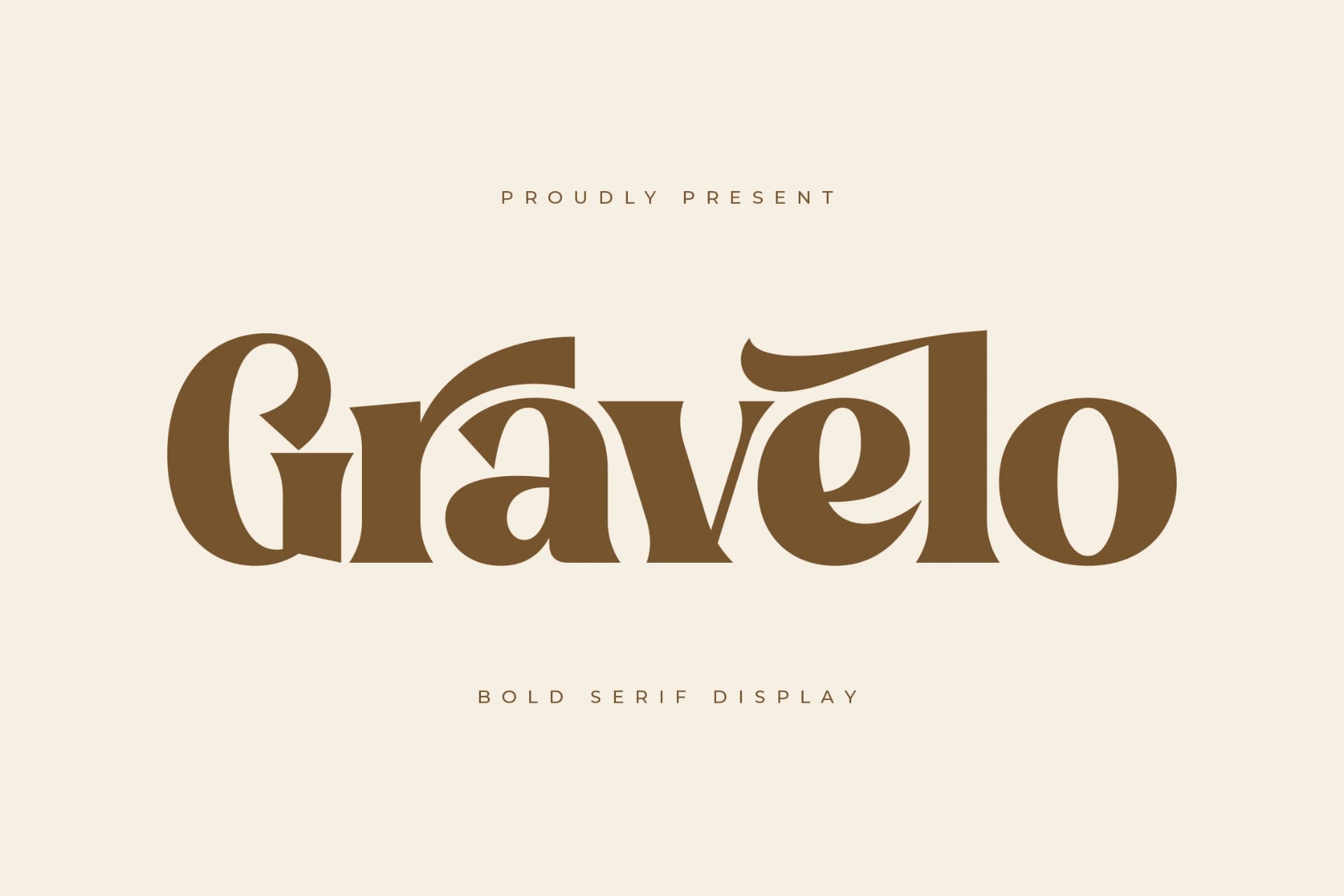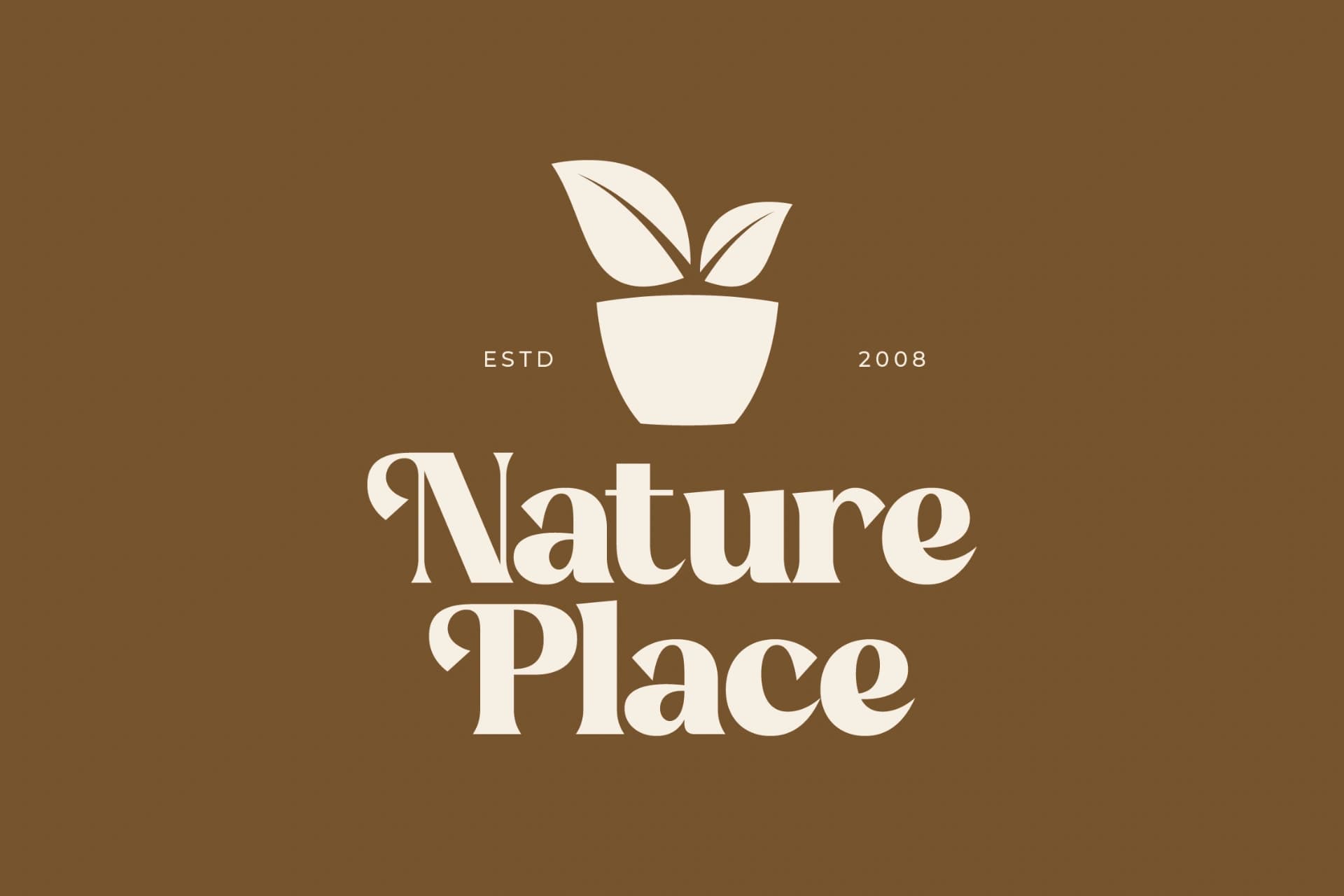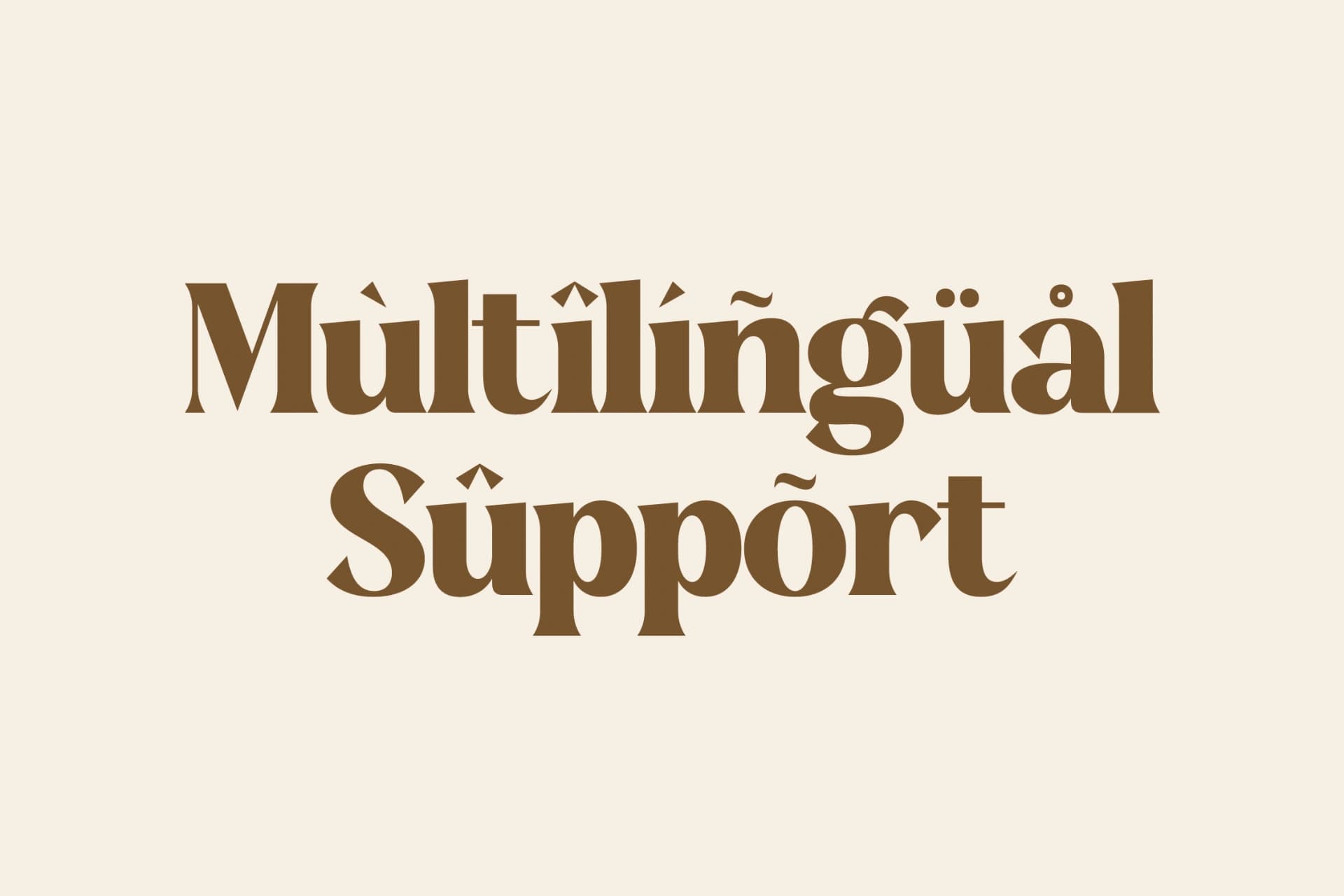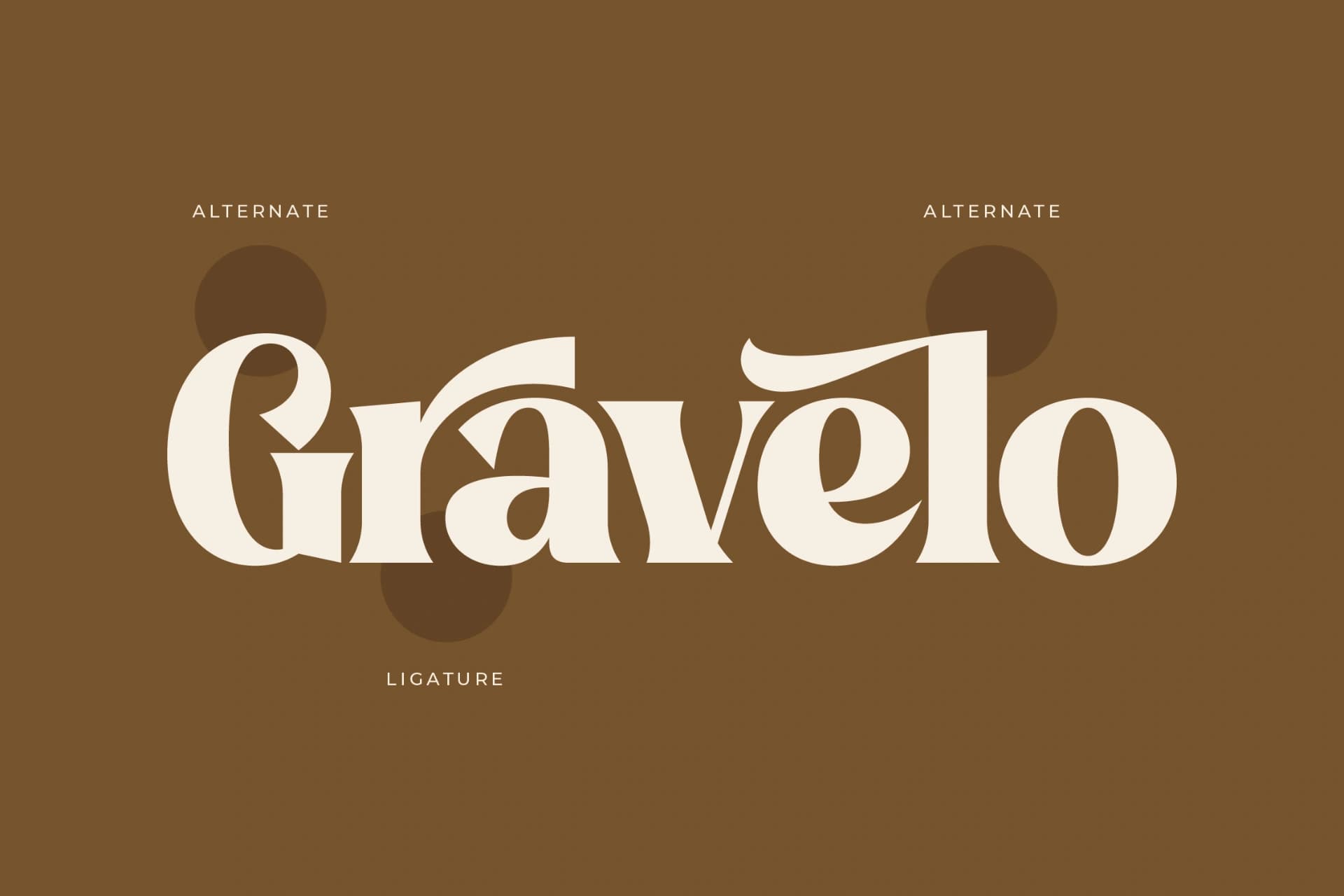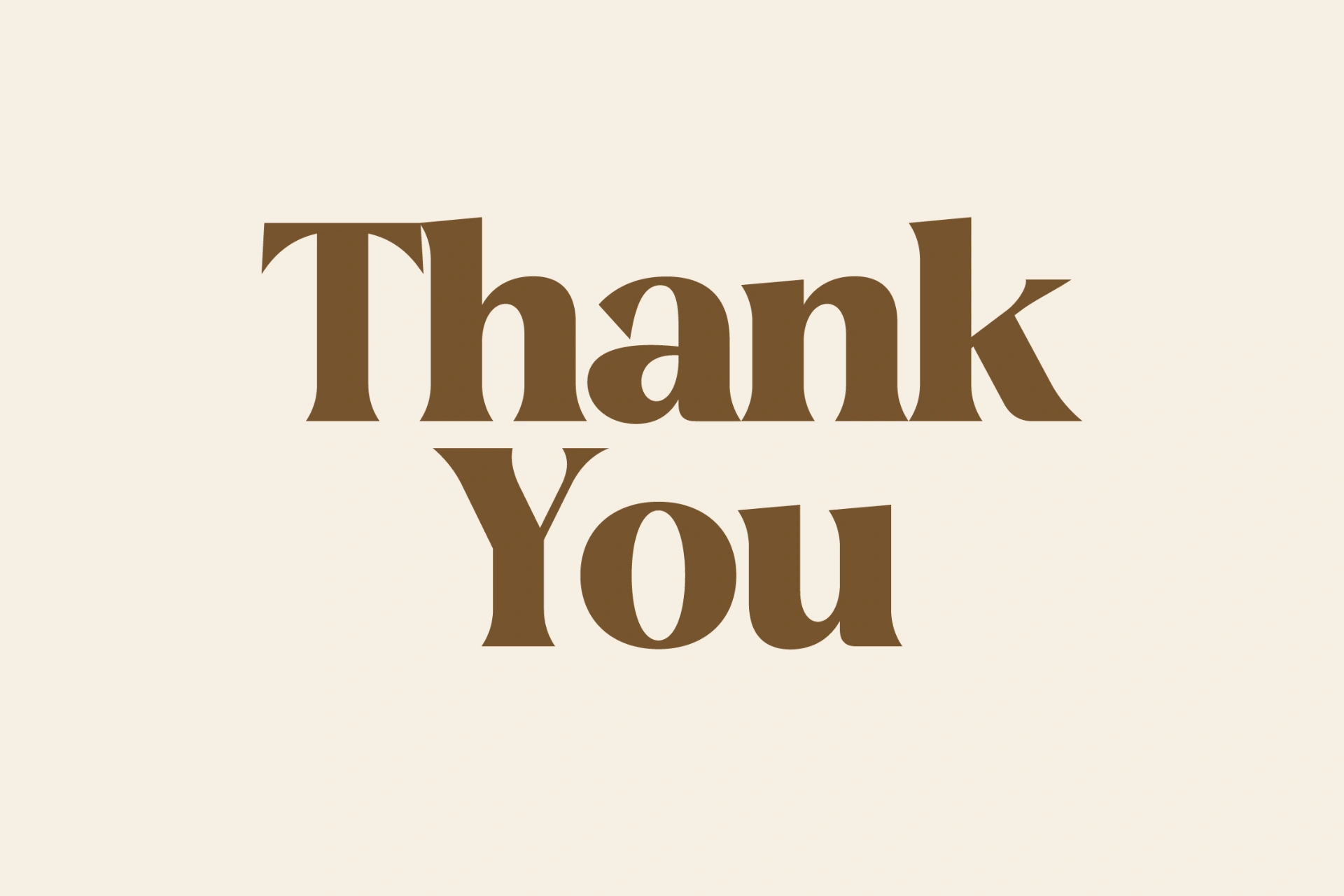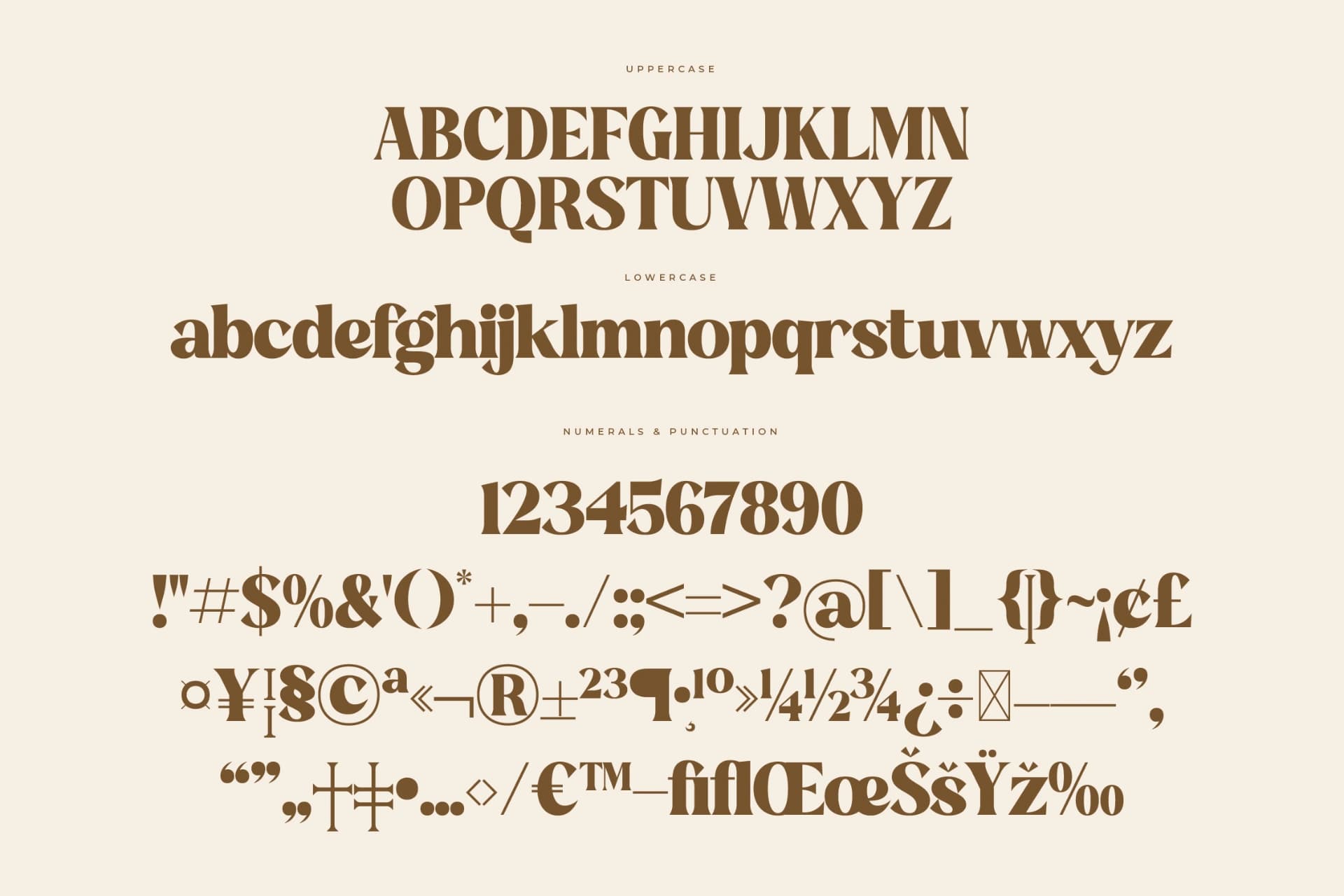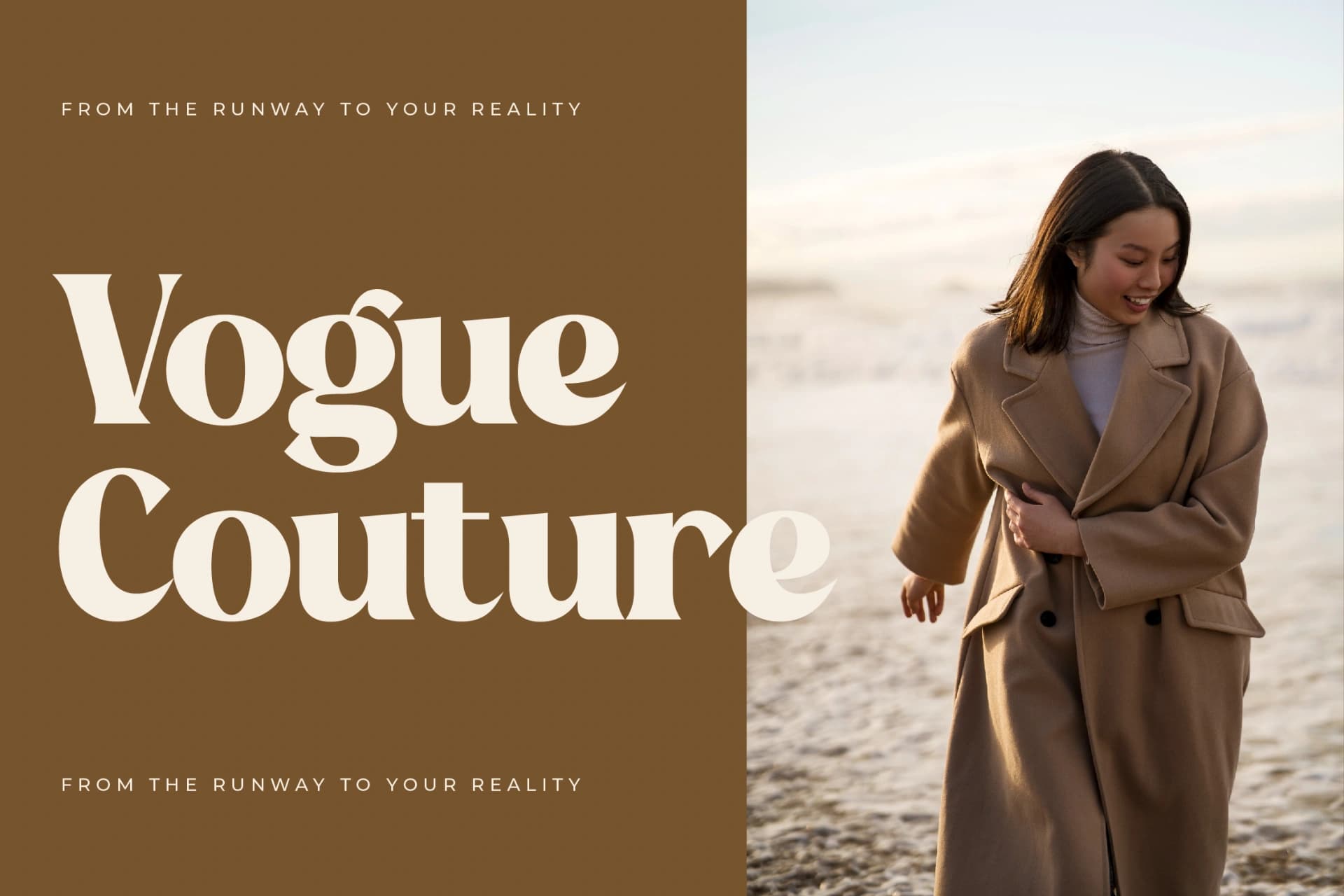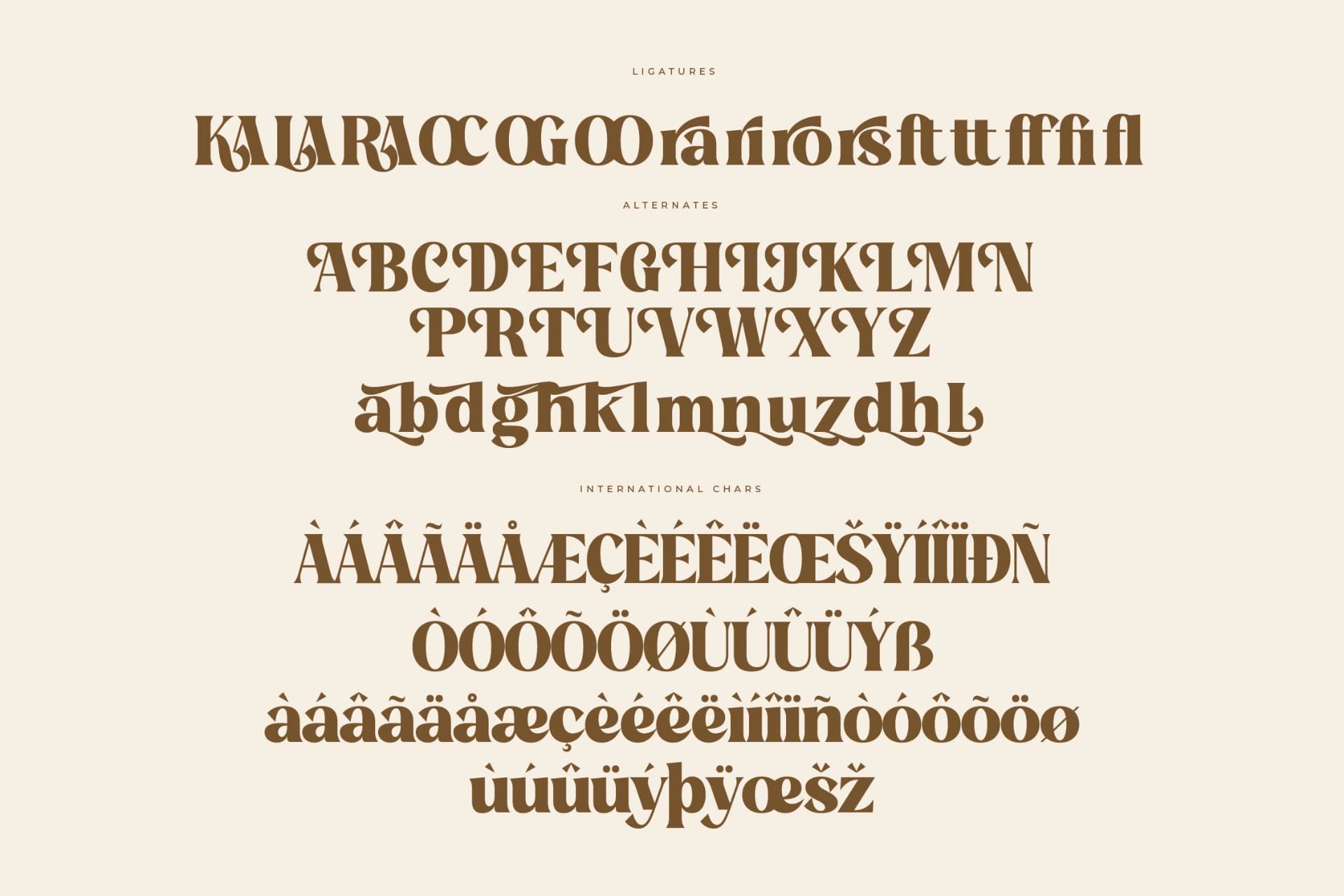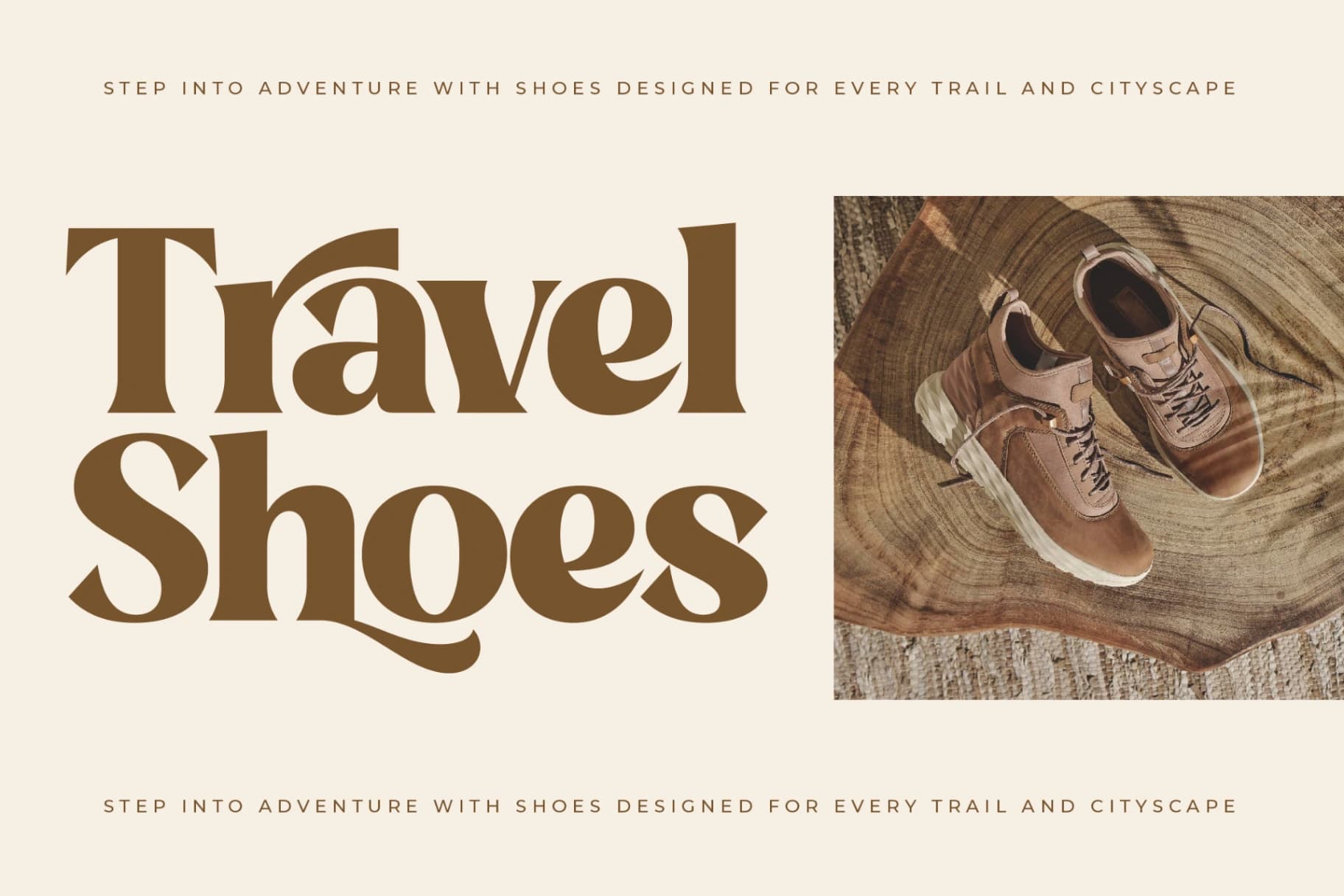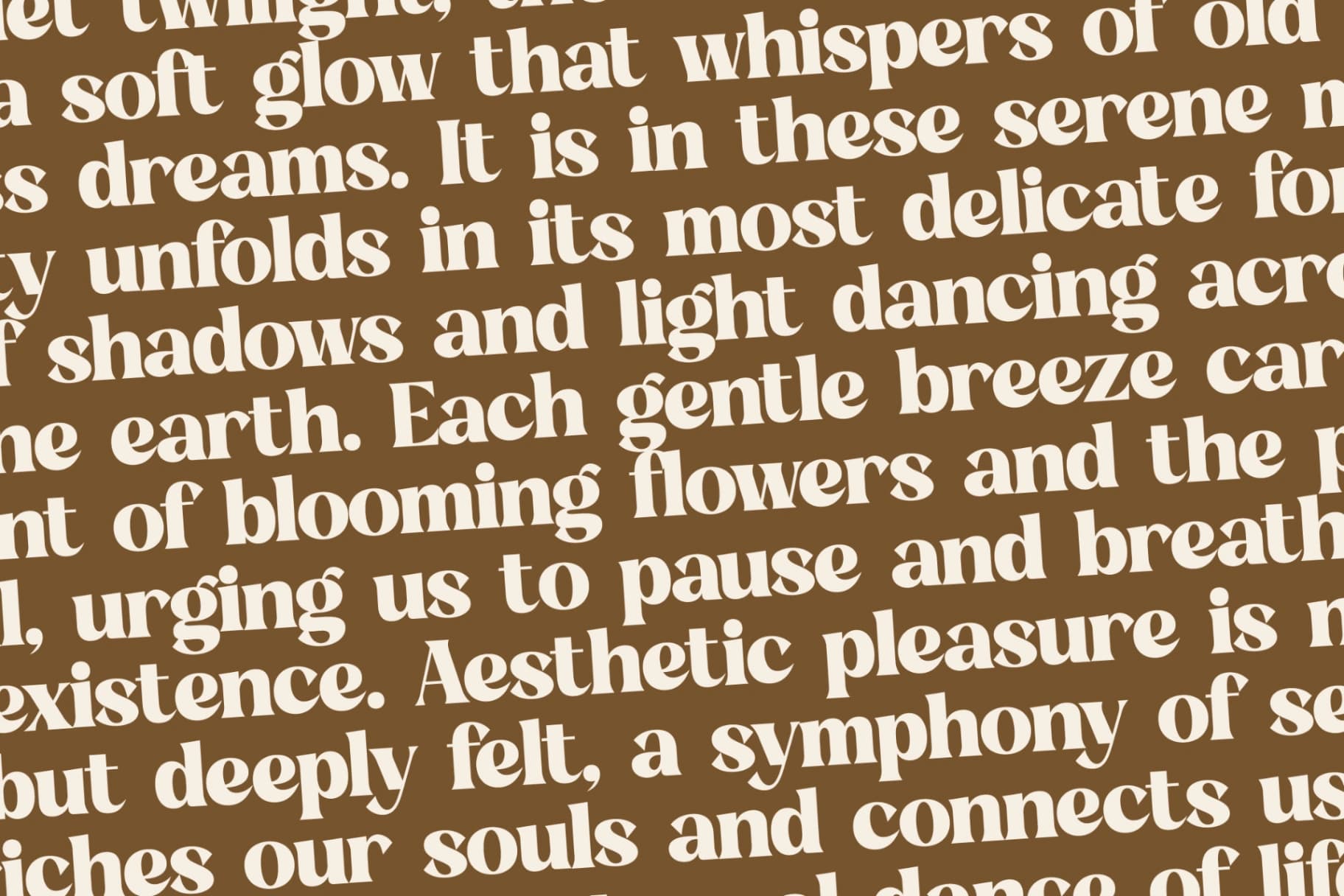
Gravelo – Bold Serif Display
Demand attention with unparalleled typographic confidence and retro-chic appeal. The Gravelo – Bold Serif Display typeface is a masterclass in modern display typography, delivering instant visual impact through its dramatically weighted structure. This font leverages exaggerated curves and robust forms, providing a warm, substantial presence that feels both nostalgic and utterly contemporary. It is engineered for headlines where legibility meets high style, transforming simple text into a powerful graphic element that commands the reader's focus.
Elevate your brand narrative beyond geographical boundaries and limitations. The inherent stylistic personality of Gravelo – Bold Serif Display ensures that it resonates strongly across diverse media platforms, from digital interfaces to print collateral. Crucially, with its extensive multilingual support, Gravelo – Bold Serif Display adapts seamlessly across global markets, making it incredibly versatile for international projects. This comprehensive language coverage ensures that your message maintains its consistent, luxurious feel worldwide.
Forge an unmistakable identity that communicates exclusivity and sophistication. Gravelo – Bold Serif Display is the definitive choice for design professionals seeking to inject prestige into their visual identity systems. It is perfectly suited for luxury branding, high-end product packaging design, bespoke wedding stationery, and generating striking editorial layouts. Use this face to convey deep character and premium quality—it is specifically designed to function flawlessly at large scales, dominating the visual field with its unique personality.
Secure a foundational element for truly timeless and impactful design projects. Investing in Gravelo – Bold Serif Display provides a sophisticated design asset that instantly adds depth and personality to any creative execution. Its unique, flowing letterforms guarantee that your visual communication possesses a distinctive edge in competitive marketplaces. Choose Gravelo – Bold Serif Display to ensure your next project achieves maximum readability and unforgettable, high-impact style.